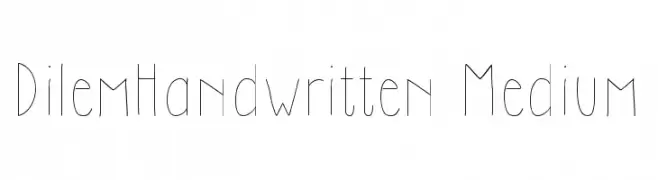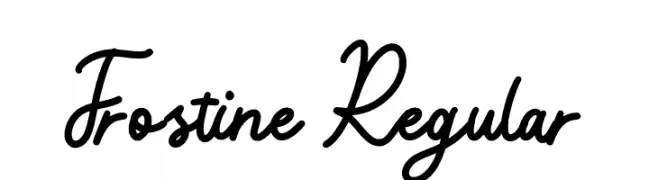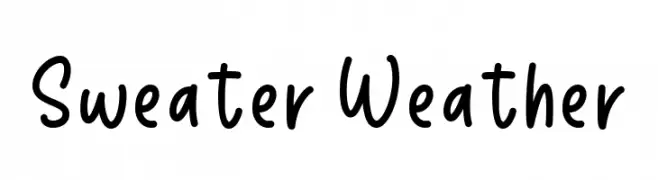
A flowing, cursive script font with elegant loops and smooth connections.
A dynamic and elegant script font with flowing, cursive letterforms.
A bold, geometric, and italic font with a futuristic and angular design.
A bold, geometric font with a futuristic, maze-like design.
A medium-weight, handwritten font with a tall, slender, and charming style.
A geometric, abstract font with blocky, angular shapes and a futuristic aesthetic.
A bold, playful handwritten font with thick, rounded strokes.
An elegant, flowing script font with a natural handwriting style.
A playful handwritten font with smooth curves and a casual style.
A playful, casual handwritten font with smooth, flowing lines.